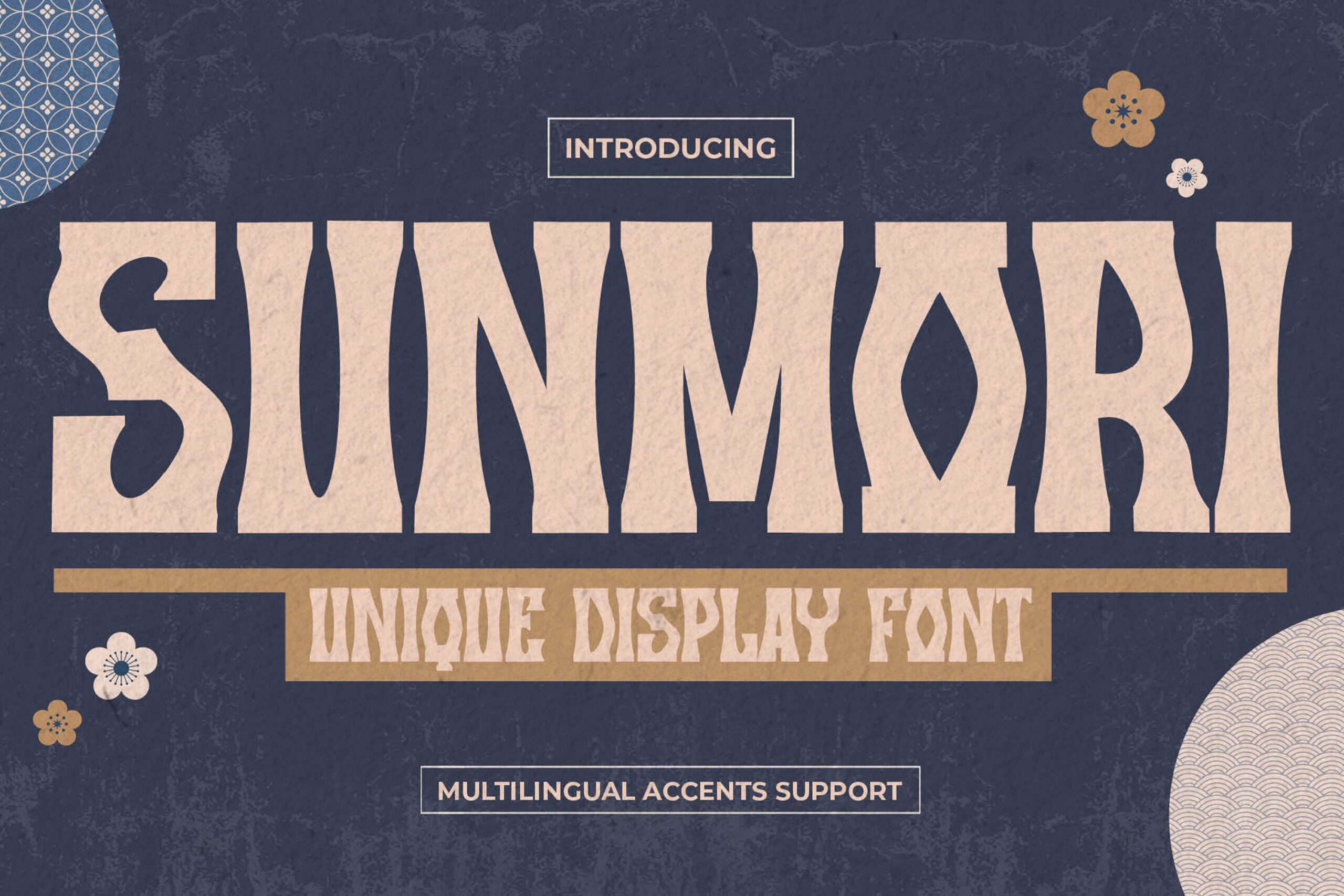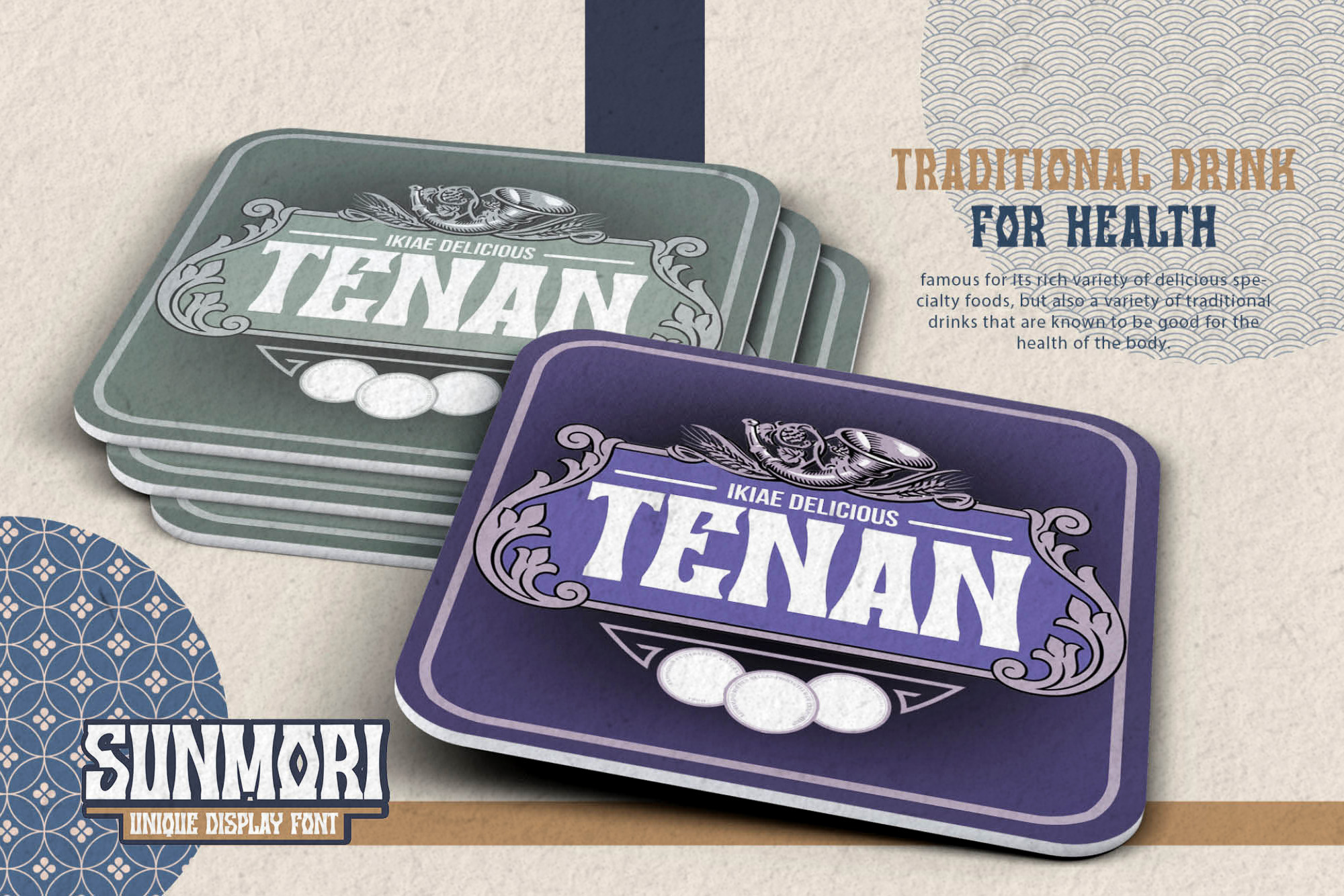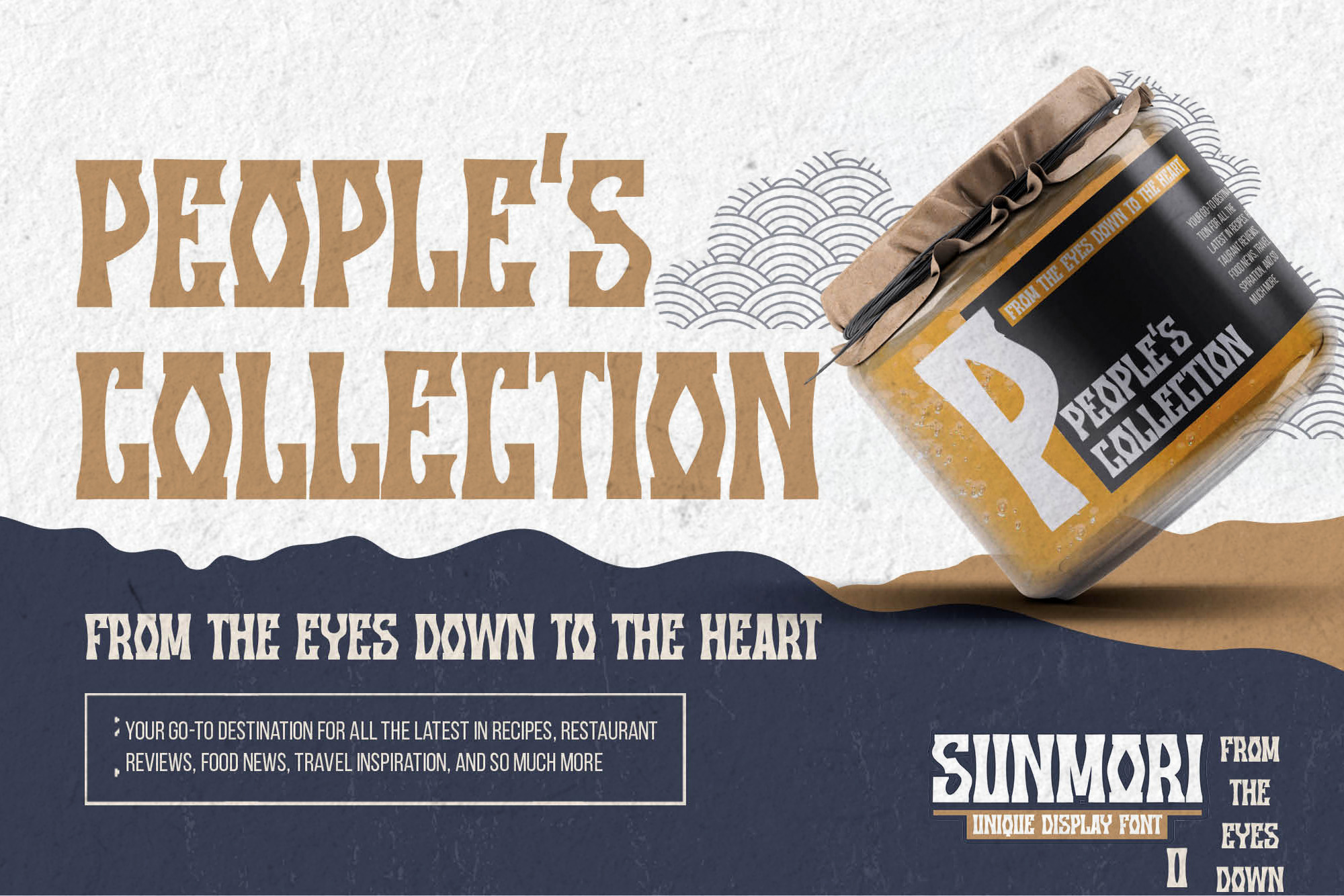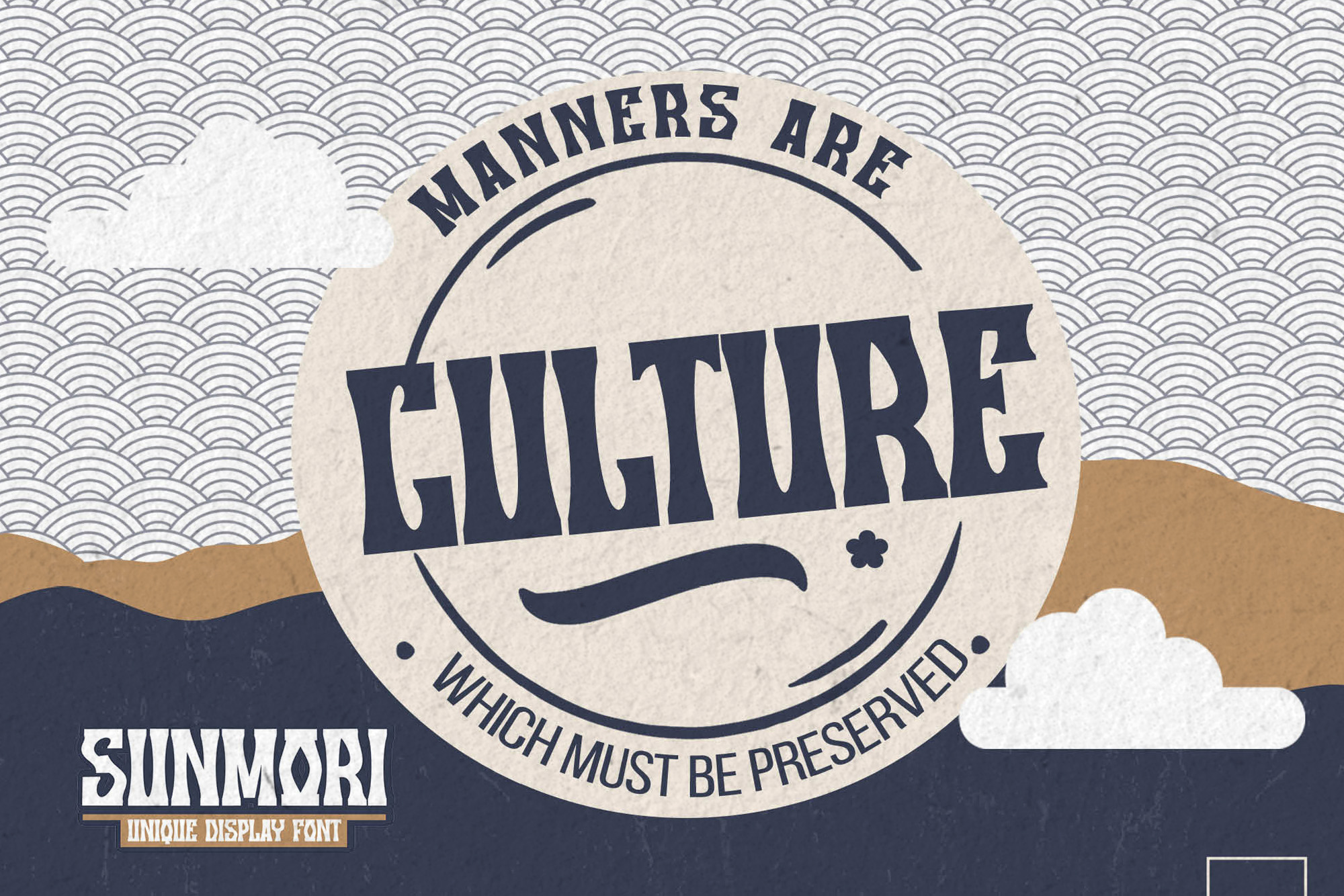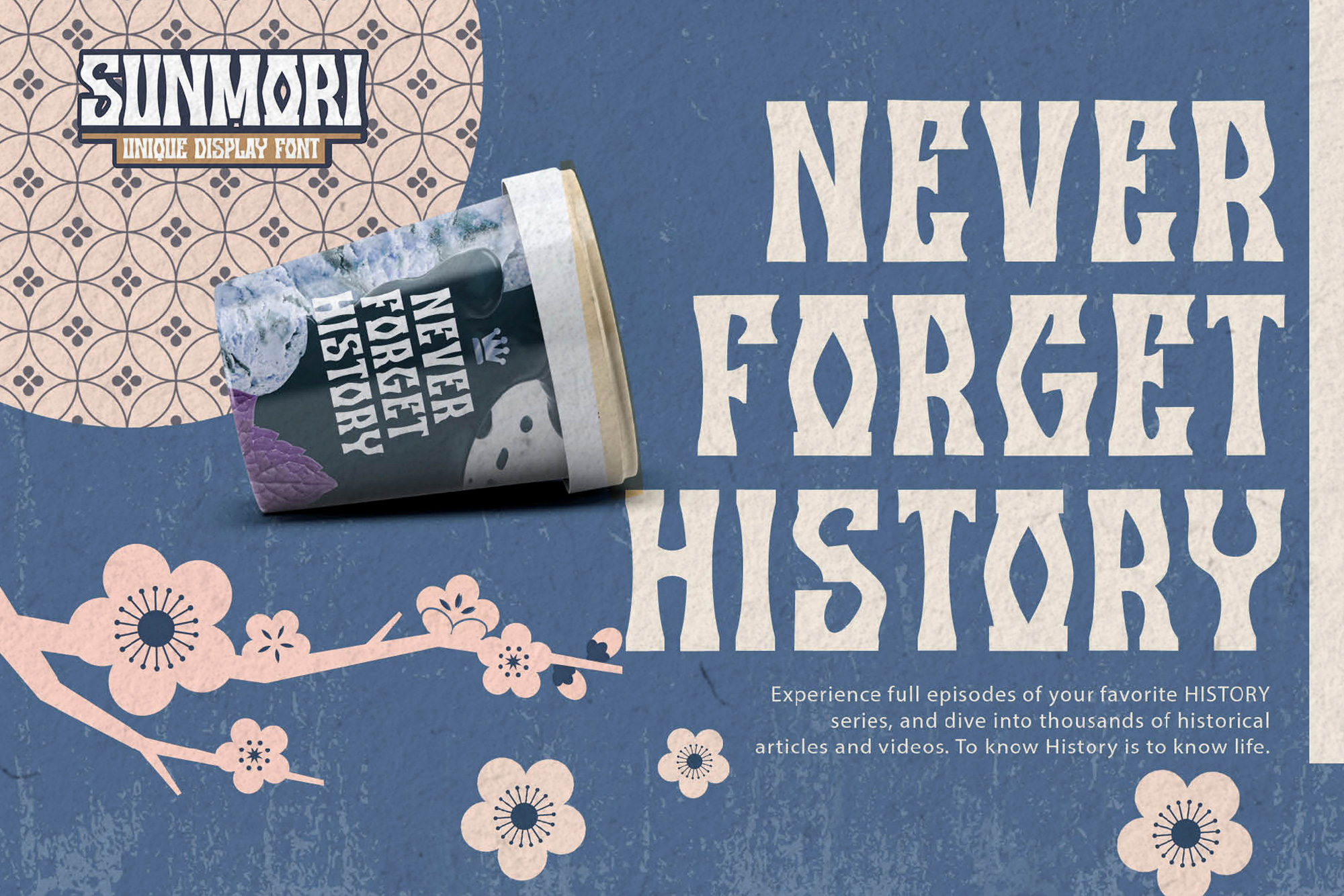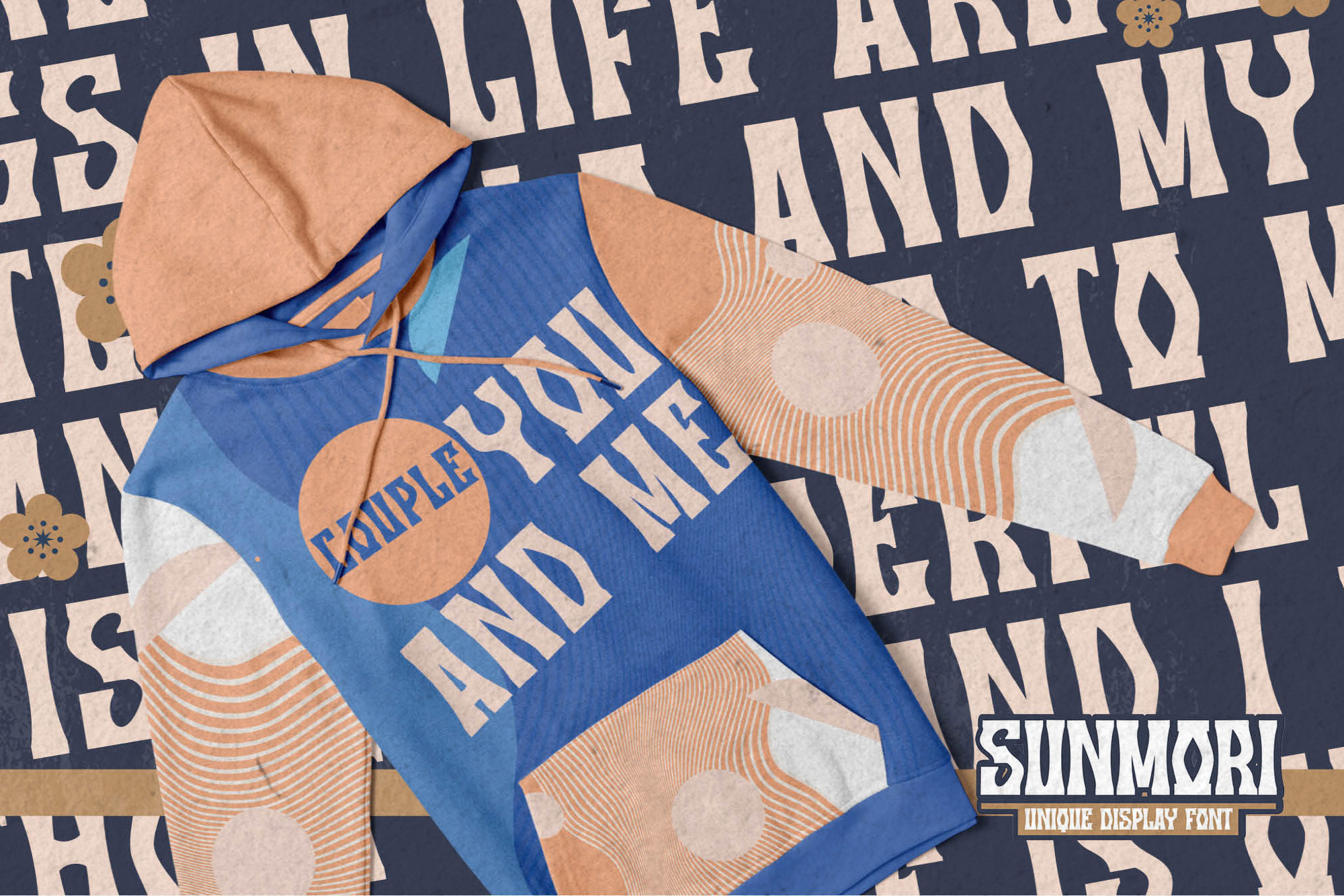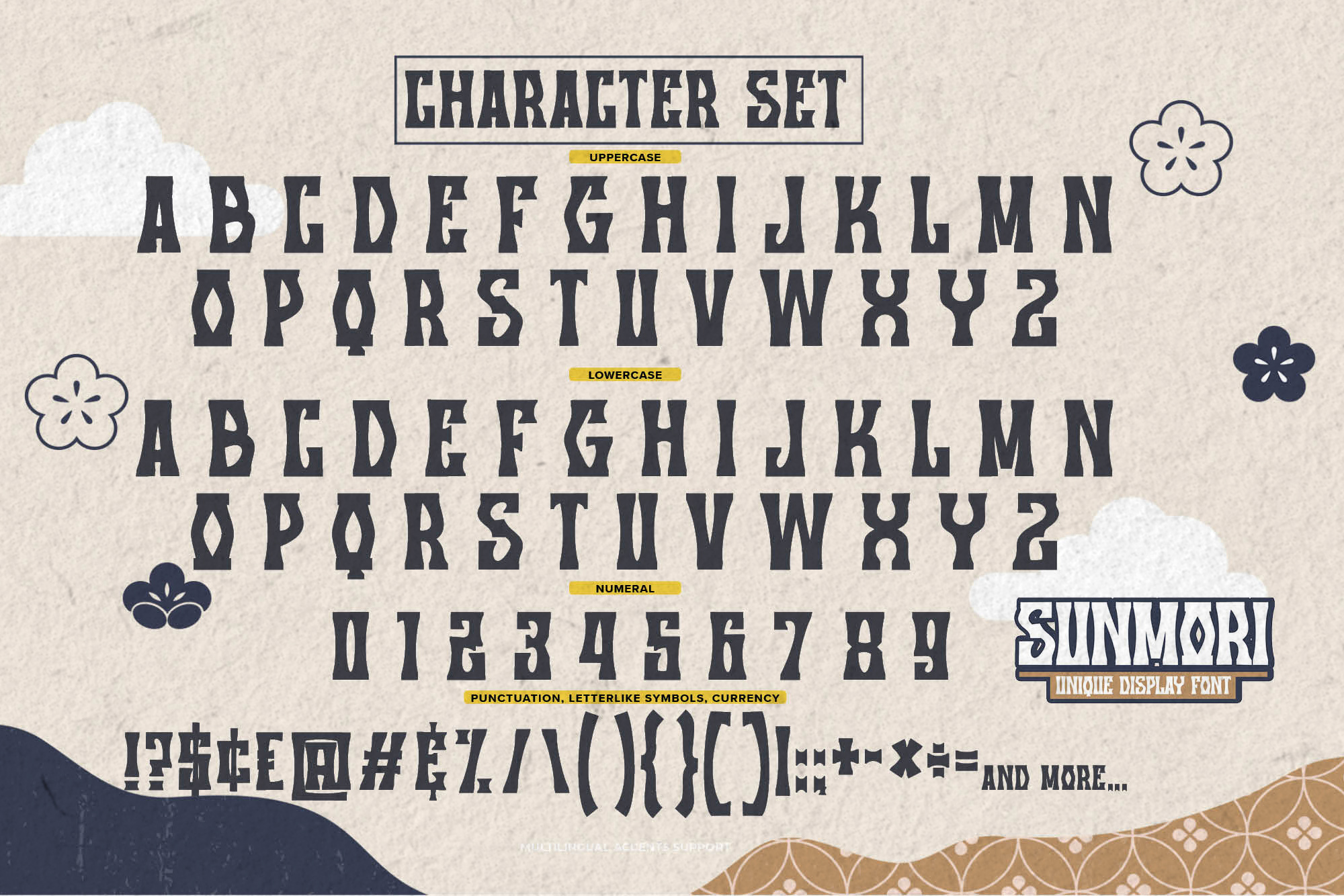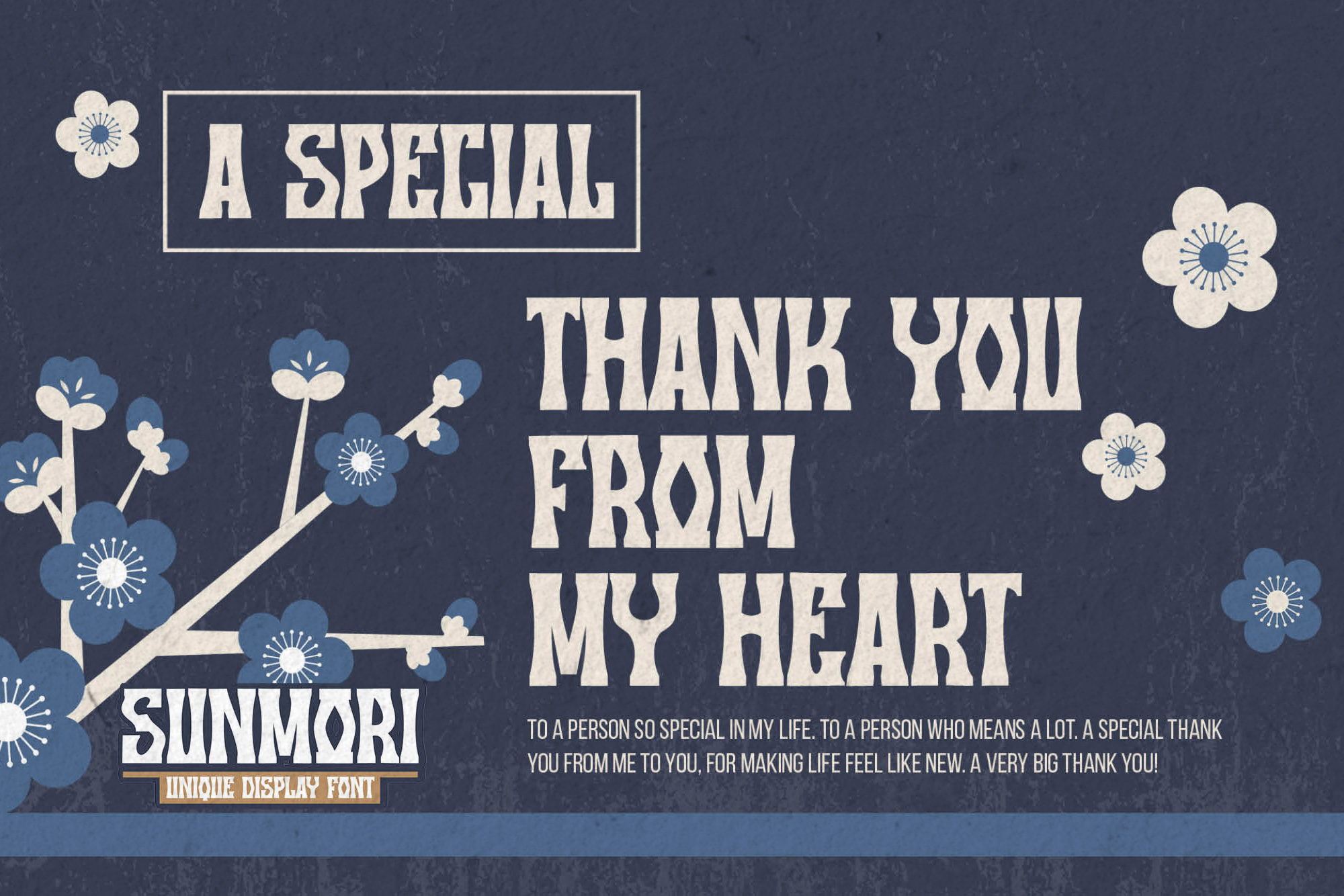
SUNMORI – Unique Display Font , modern style and dramatic movement that is written casually and quickly.
The best for poster,project , designs look modern, unique and fun. It’s perfect for labels, quotes, posters, DIY projects, branding, packaging, greeting cards, websites, photography overlays, signs, scrapbooking, tags and so much more! That is why SUNMORI has a unique, and strong characteristic more natural look.